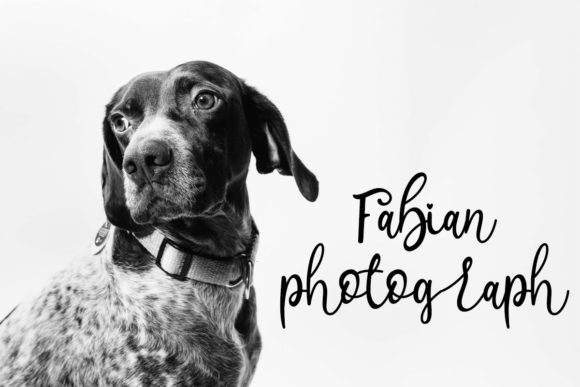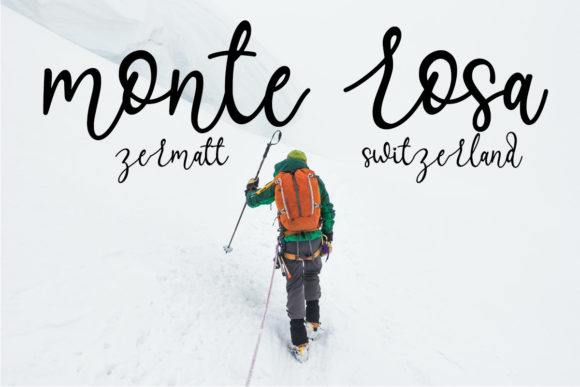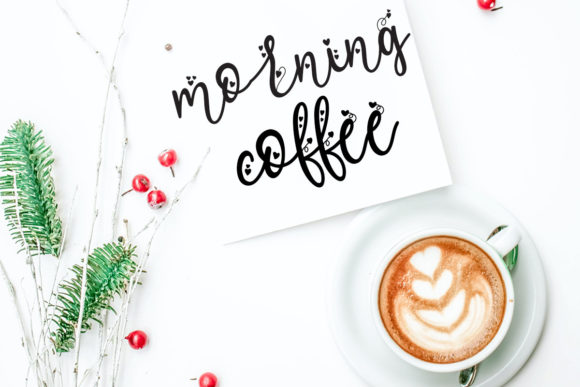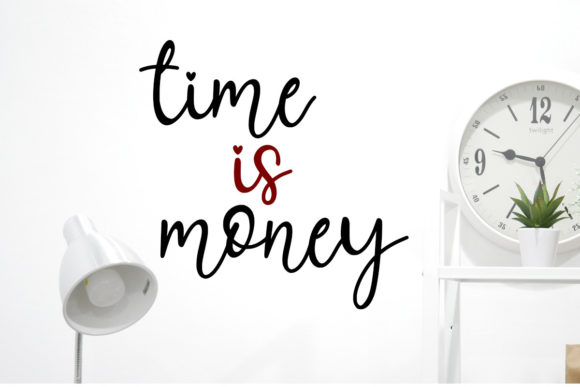
Introducing Beloved Font: Elevate Your Designs with Delicate Elegance
In the world of typography, a font can make or break a design. For designers and crafters seeking a touch of elegance and sophistication, the Beloved Font is a game-changer. This exquisite script font is meticulously crafted to bring a delicate and fashionable flair to any project, making it perfect for branding, logos, t-shirt printing, and creative products.
Unveiling the Beauty of Beloved Font
Beloved Font is more than just a typeface; it’s an experience. Its delicate strokes and elegant swashes are designed to add a touch of luxury to your designs. Whether you’re working on a logo, a t-shirt, or a creative product, this font will elevate your project to new heights. The versatility of Beloved Font ensures it will look extraordinary in a variety of contexts, from digital platforms to print materials.
One of the standout features of Beloved Font is its PUA (Private Use Area) encoding. This means that accessing all the glyphs and swashes is incredibly easy. Designers can effortlessly navigate through the font’s extensive range of characters, including alternates, ligatures, and swashes, to create unique and captivating designs. The PUA encoding ensures that you can make the most out of Beloved Font, bringing your creative visions to life with ease.
Ideal for Various Projects
The applications of Beloved Font are vast and varied. Here are some ways you can utilize this stunning script font:
- Logos and Branding: Create a lasting impression with a logo that exudes elegance and sophistication. Beloved Font is perfect for crafting unique brand identities that stand out.
- T-Shirt Printing: Elevate your apparel designs with a font that adds a touch of class. From quotes to slogans, Beloved Font will make your t-shirt designs truly special.
- Creative Products: Whether it’s stationery, invitations, or any other creative product, Beloved Font will add that extra layer of charm and appeal.
Why Choose Beloved Font?
With so many fonts available, why should Beloved Font be your go-to choice? Here are a few compelling reasons:
- Unique and Versatile: Its delicate and fashionable script offers a fresh alternative to traditional fonts, making your designs instantly stand out.
- Ease of Use: Thanks to PUA encoding, you have easy access to a wide range of glyphs and swashes, allowing for endless creativity.
- High-Quality Design: Crafted with precision, Beloved Font ensures that your designs look professional and captivating.
Tips for Using Beloved Font
To make the most out of Beloved Font, consider the following tips:
- Experiment with Swashes: Don’t be afraid to play around with the swashes and glyphs to add a personal touch to your designs.
- Combine with Solids: Pair Beloved Font with solid colors or gradients to create a striking contrast that enhances your design.
- Consider the Context: While Beloved Font is versatile, consider the context and audience of your design to ensure the font aligns with the message you’re conveying.
Beloved Font is a delicate and fashionable script font that promises to elevate your designs to new heights. Its versatility, combined with the ease of use provided by PUA encoding, makes it an indispensable tool for designers and crafters. Whether you’re working on a branding project, t-shirt printing, or creating unique products, Beloved Font is sure to add that special touch of elegance and sophistication. Make your designs truly unforgettable with Beloved Font.